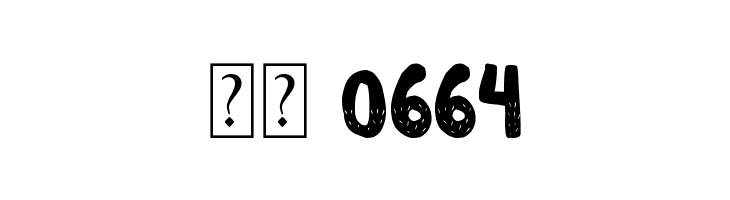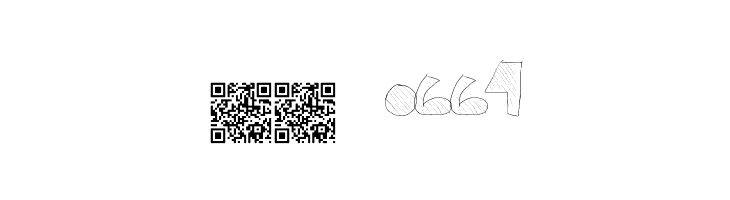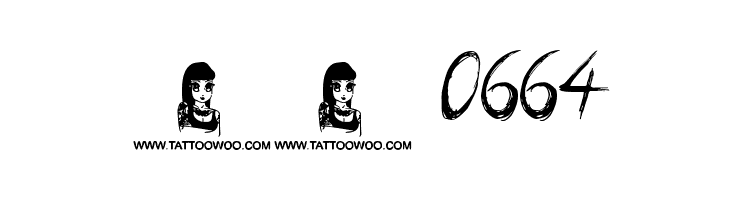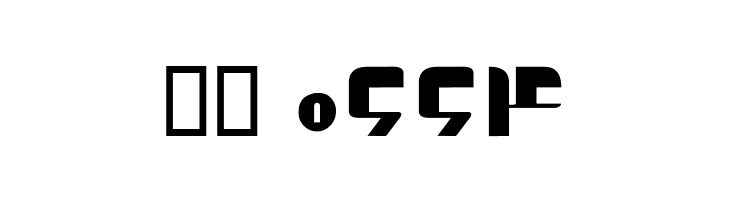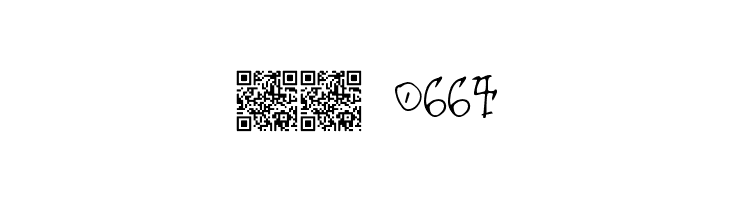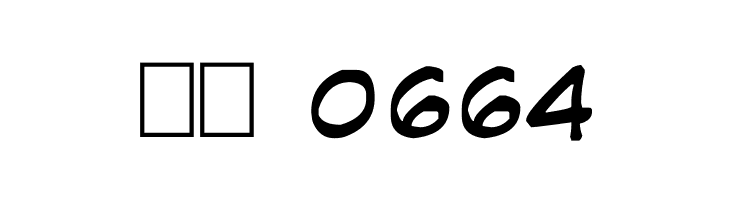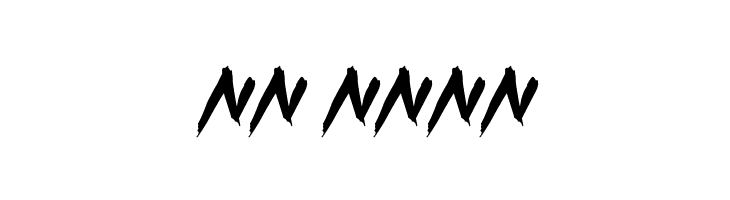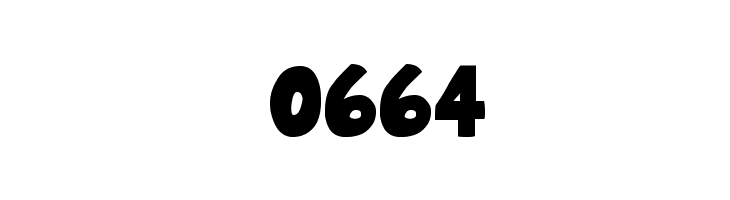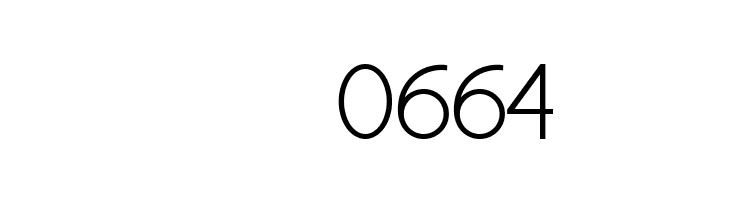
A bold, high-contrast serif font with sharp, angular serifs and a modern edge.
A geometric, angular font with a modern and edgy style.
A modern, clean sans-serif font with excellent readability and uniform design.
A bold, futuristic font with geometric shapes and sharp angles.
A tall, narrow, and modern font with tight character spacing.
A decorative and intricate font with elongated, interwoven characters.
A playful, handwritten font with a childlike, whimsical style.
A playful, decorative font inspired by vintage children's alphabet blocks.
A playful, hand-drawn font with a sketch-like, youthful appearance.
A playful, hand-drawn font with irregular strokes and a whimsical style.
A bold, distressed font with a gritty, rugged texture.
A bold, edgy font with sharp, angular strokes and a dynamic, intense style.
A bold, whimsical display font with intricate patterns and playful elements.
A bold, playful handwritten font with rounded, consistent strokes.
A gothic, medieval-style font with sharp, angular strokes and intricate detailing.
A bold, dynamic font with thick strokes and sharp edges, ideal for impactful designs.
A bold, decorative font with pirate-themed flair and unique embellishments.
A bold, cartoonish font with thick outlines and a playful, three-dimensional style.
A bold, cartoonish font with thick outlines and playful shapes.
A bold, playful font with rounded, whimsical characters.
A bold, playful font with rounded, cartoonish characters.
An ornate and decorative script font with intricate swirls and flourishes.
A bold, angular font with a geometric and retro-modern style.
A bold, textured font with diagonal lines, perfect for striking headlines.
A geometric, angular font with a futuristic and bold design.
A modern, elongated font with narrow, geometric characters and minimal contrast.
A pixelated, retro-style font inspired by classic video game graphics.
A dynamic, hand-drawn script font with bold, sweeping strokes and artistic flair.
A rugged, distressed font with a hand-drawn, edgy style.
A bold, angular font with sharp, geometric edges and a futuristic style.